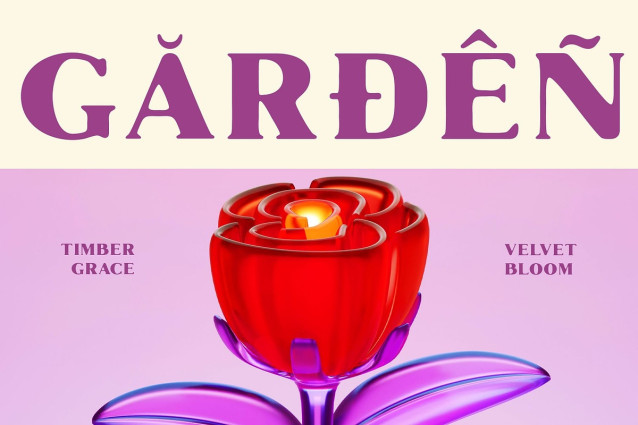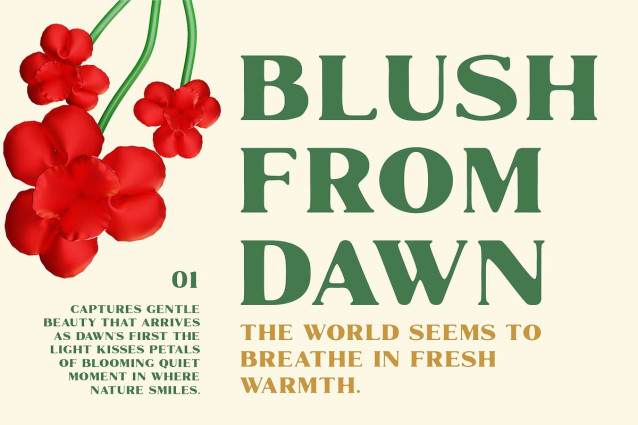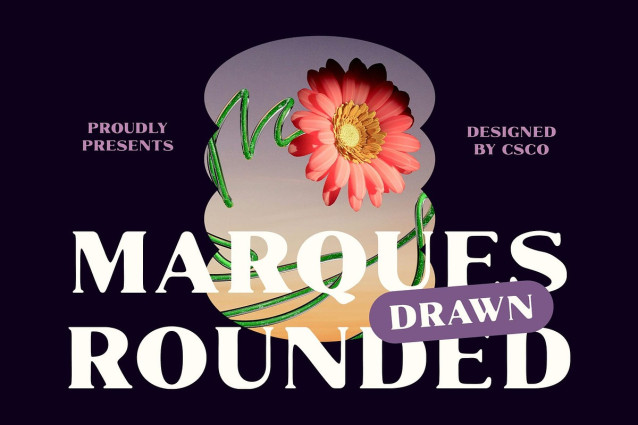
Marques Rounded Drawn Font
Marques Rounded Drawn is a modern classic serif font that combines bold, rounded letterforms with timeless elegance. The carefully designed curves and balanced proportions give this font a sophisticated, yet approachable feel, making it perfect for a wide range of creative applications. Its boldness ensures that it commands attention without overwhelming the design, striking the perfect balance between refinement and strength.
Hand-Drawn Effect for Artistic Charm What makes this modern serif font stand out is its hand-drawn effect, which adds a unique, artistic touch to its already classic form. The drawn texture softens the font’s appearance, lending it a personal, handcrafted quality that enhances its charm and makes it feel more distinctive.
Perfect for Luxury Branding and Editorial Design This rounded serif font is ideal for luxury branding, editorial layouts, and visual projects that require a timeless, aesthetic impression. Its sophisticated yet approachable style makes it a natural fit for high-end fashion, premium products, and upscale magazines.
Classic, Elegant, and Distinctive Combining the classic appeal of serif fonts with rounded, bold shapes and a unique hand-drawn effect, this classic serif font delivers a modern twist on traditional typography. Its refined yet artistic design makes it a versatile option for projects that demand sophistication, creativity, and timeless style.